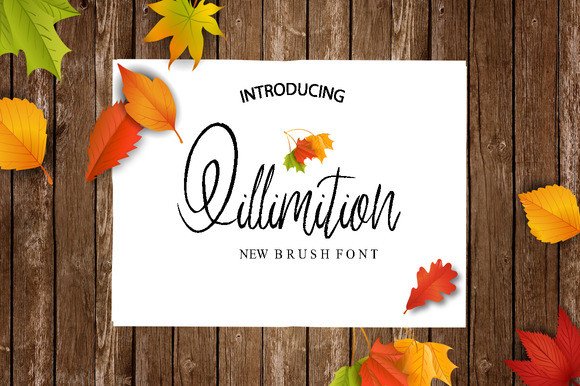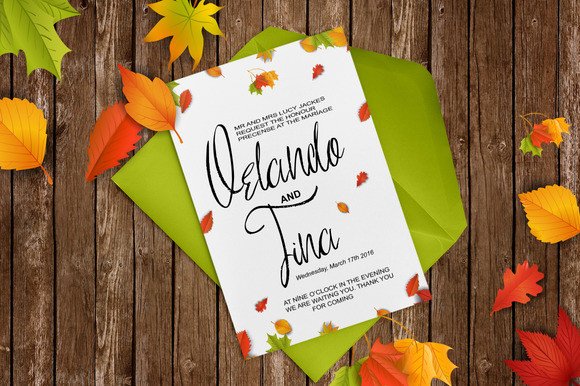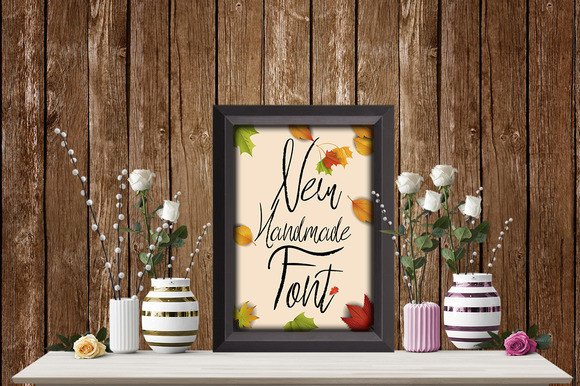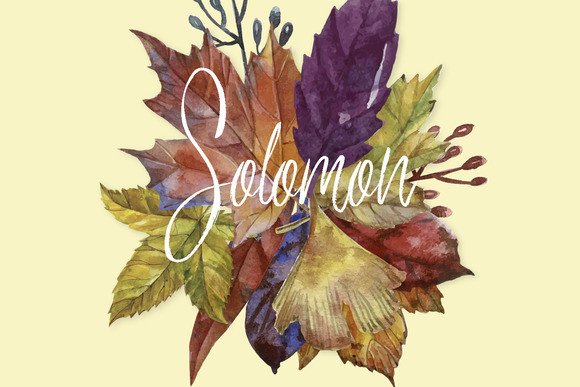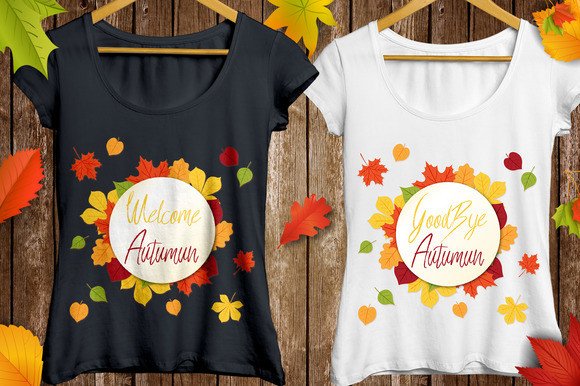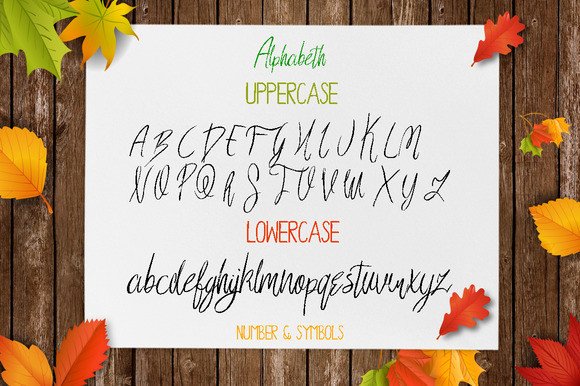
Qillimition Font
About Qillimition Font
Qillimition is a beautiful new brush font. Perfect for designing invitations, greeting cards, branding materials, business cards, quotes, posters, t-shirts, and much more!